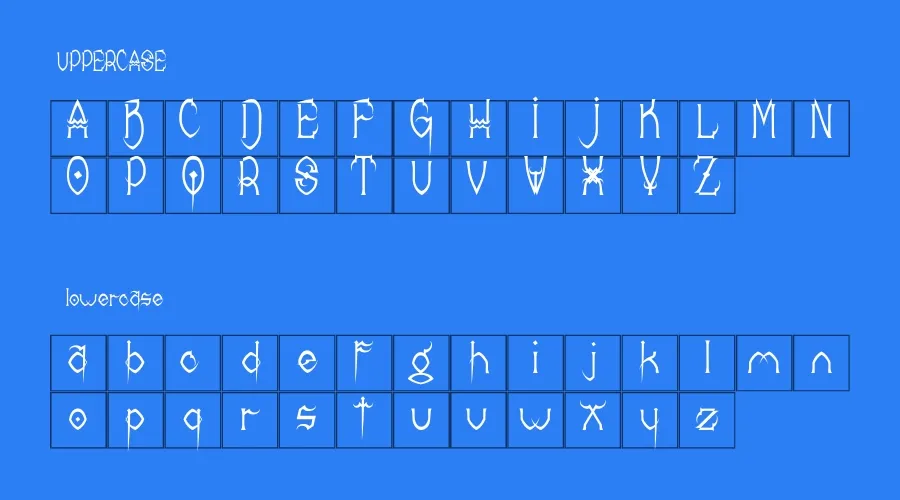
About Donrees Claws Font
Donrees Claws Font designed by Sinister Fonts is a Gothic style for creative and animation design applications, and it is appropriate. This excellent font can be used to create eye-catching logos for various businesses and organizations.
Under your project, you can integrate it with any design. It is possible to create some great displays when you pair this typeface with cocomelon font. An attractive texture design can be seen in this typeface.